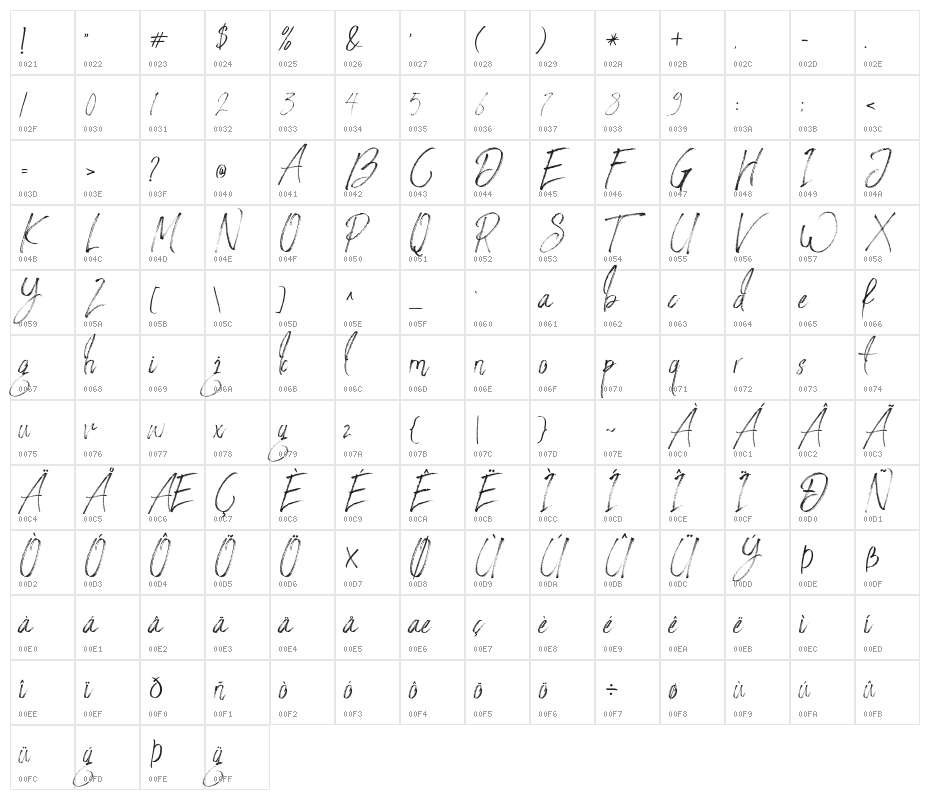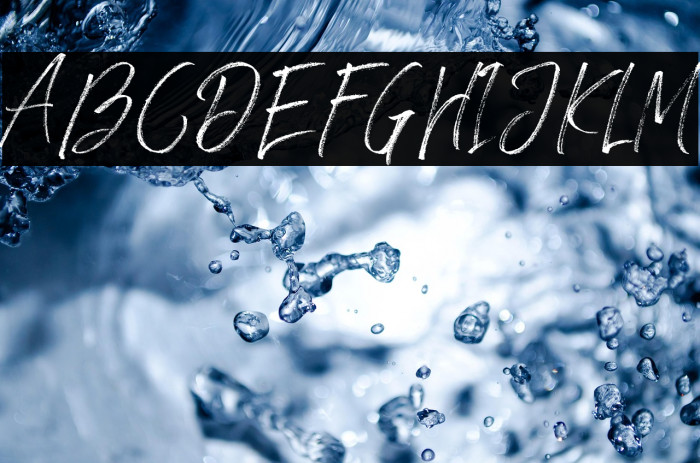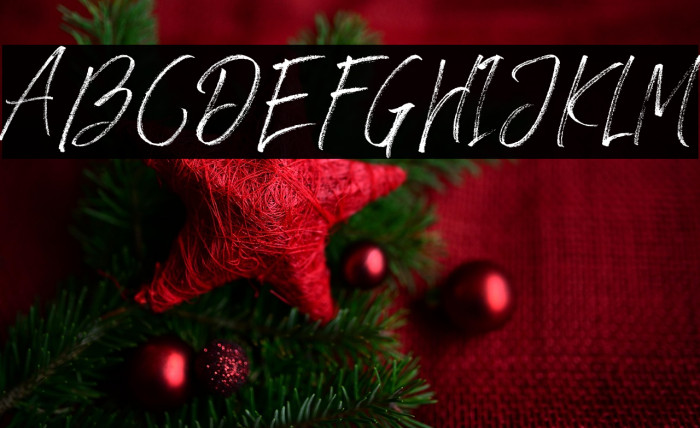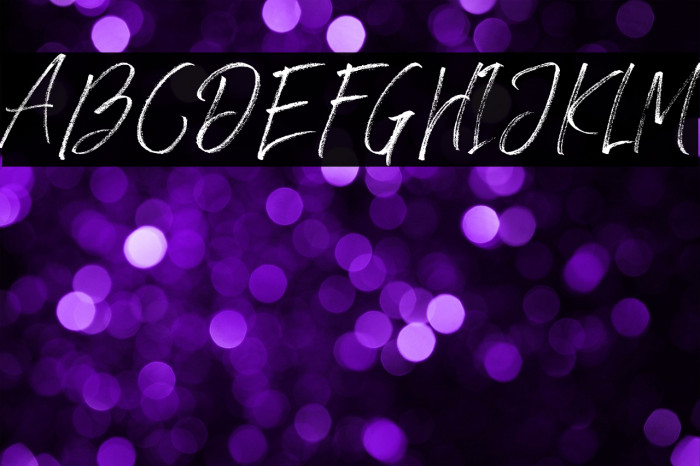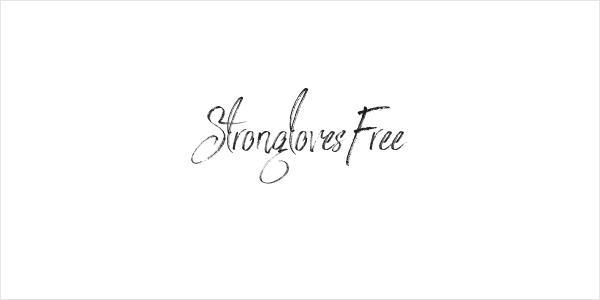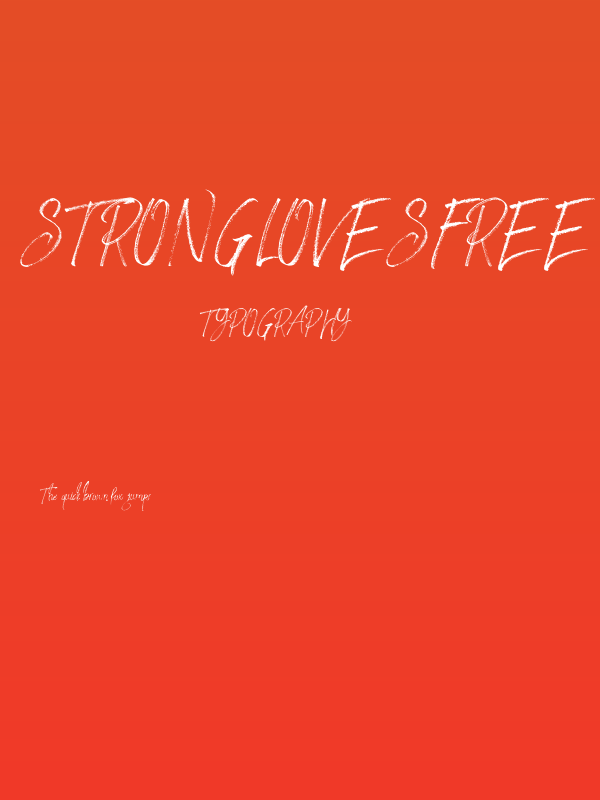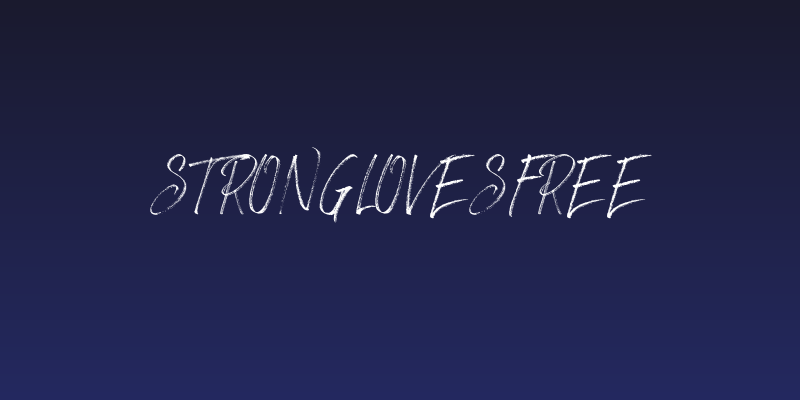
StronglovesFree Font
StronglovesFree Description
This font features a dynamic and expressive handwritten style, characterized by its fluid strokes and artistic flair. The uppercase letters are bold and sweeping, with a sense of movement that suggests a personal touch. The lowercase letters maintain this fluidity, offering a cohesive look that is both elegant and approachable. Numbers and special characters are crafted with the same attention to detail, ensuring consistency across all elements. The overall appearance is slightly textured, adding depth and a handcrafted feel to the design.
| Proposed Projects | Ideal for wedding invitations, personal branding, greeting cards, and artistic projects that require a personal touch. |